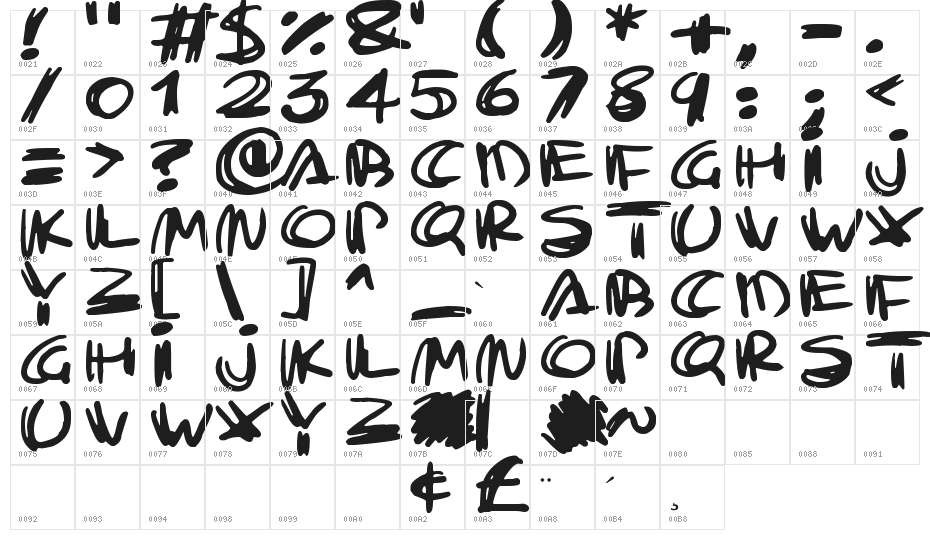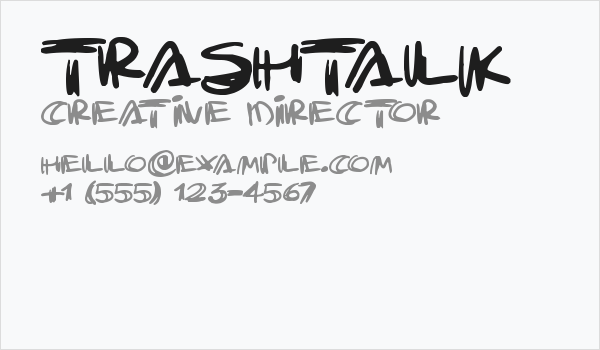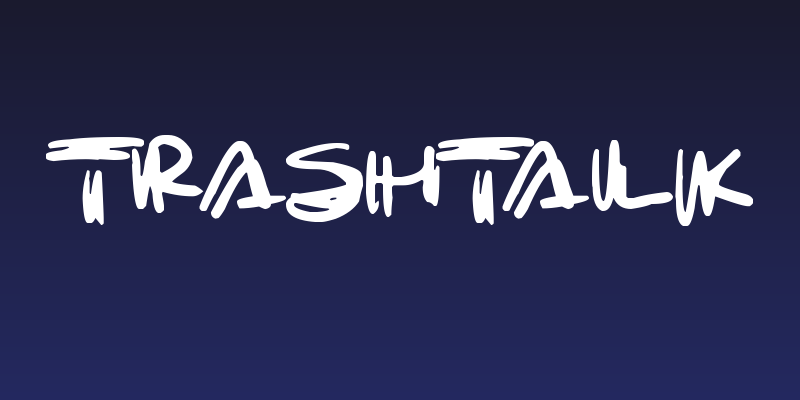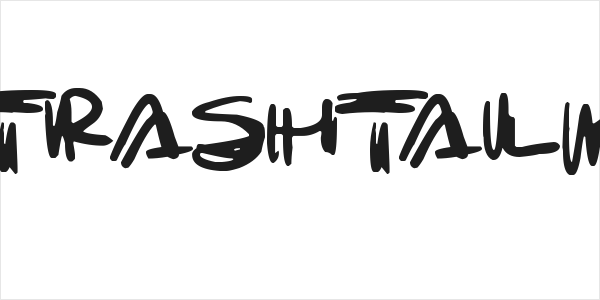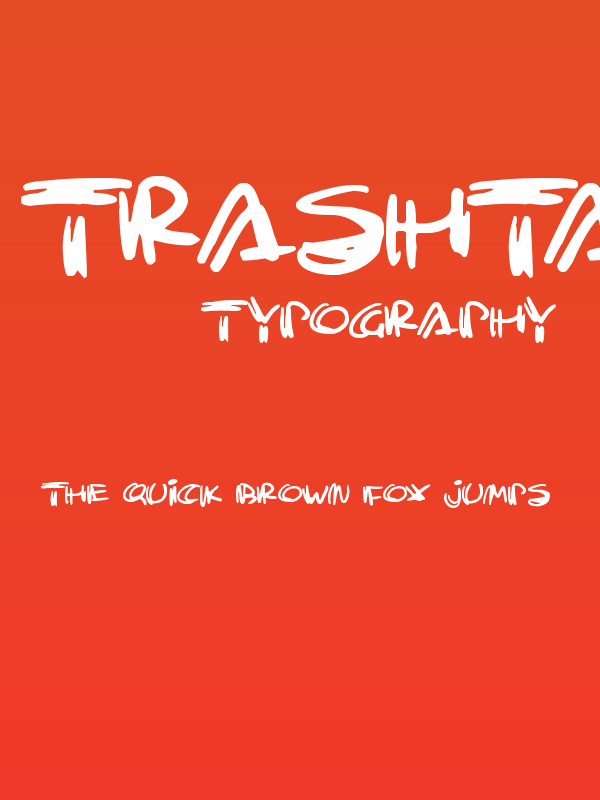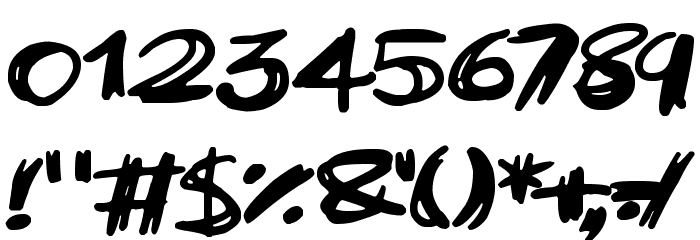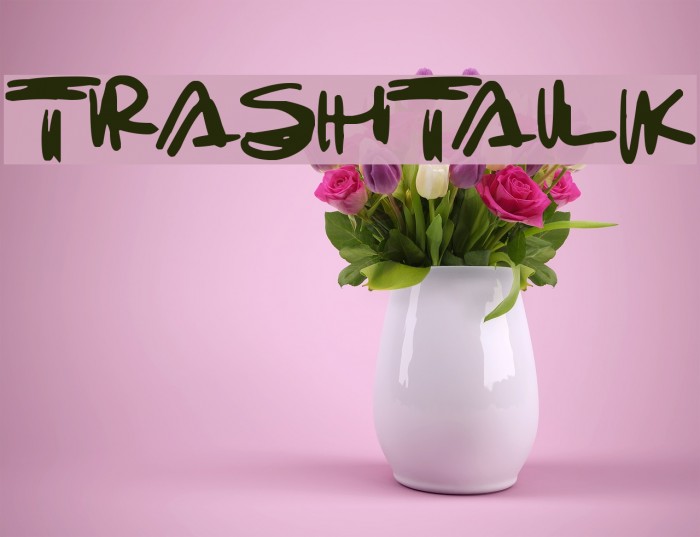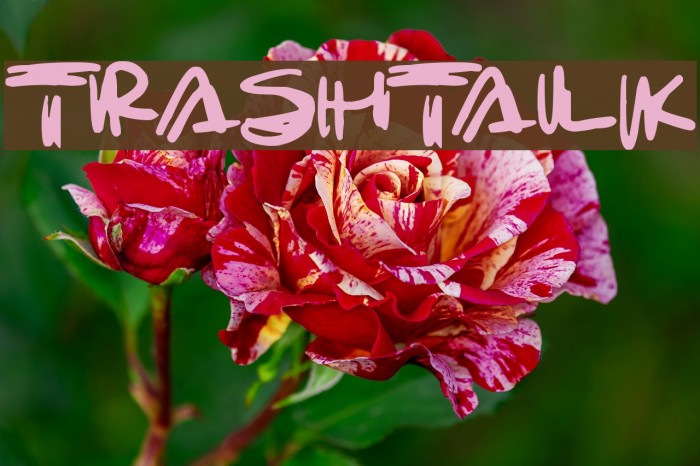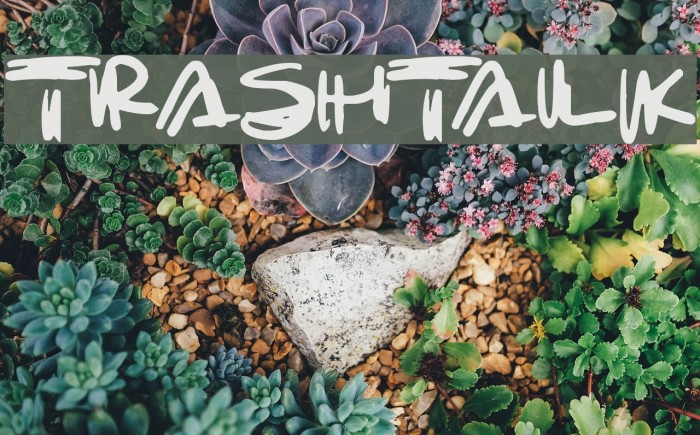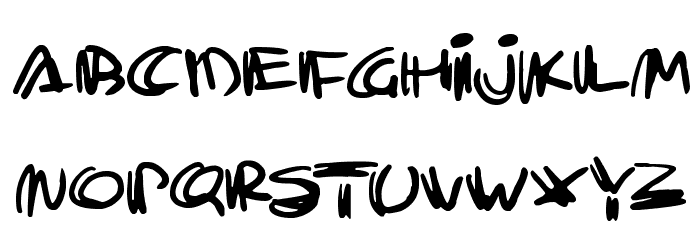
Trashtalk Font
Trashtalk Description
This font exudes a bold and energetic style, characterized by its thick, brush-like strokes and dynamic, irregular forms. The letters have a graffiti-inspired aesthetic, with a playful and rebellious edge. The uppercase and lowercase letters maintain a consistent, lively rhythm, while the numbers and special characters complement the overall style with their expressive shapes. The font's design is highly distinctive, making it ideal for projects that require a strong visual impact and a sense of movement.
| Overall Style | Modern, Urban |
| Proposed Projects | Perfect for street art designs, music album covers, urban-themed posters, and edgy branding projects. |